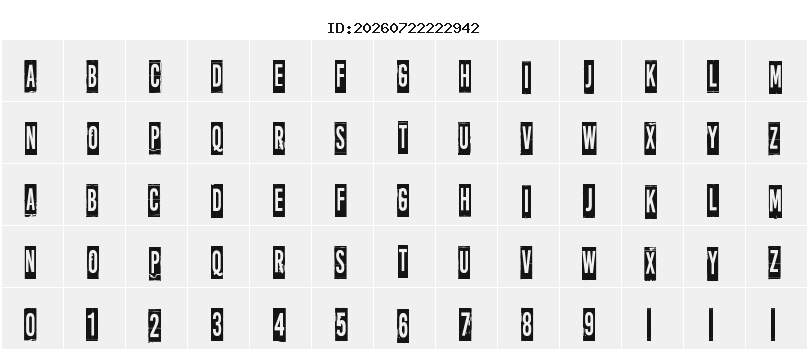
• Font Name: More news from nowhere, again
More news from nowhere, again.ttf is a modern, elegant sans-serif font designed for ultimate readability and visual harmony. Perfect for branding, headlines, web design, and print materials.